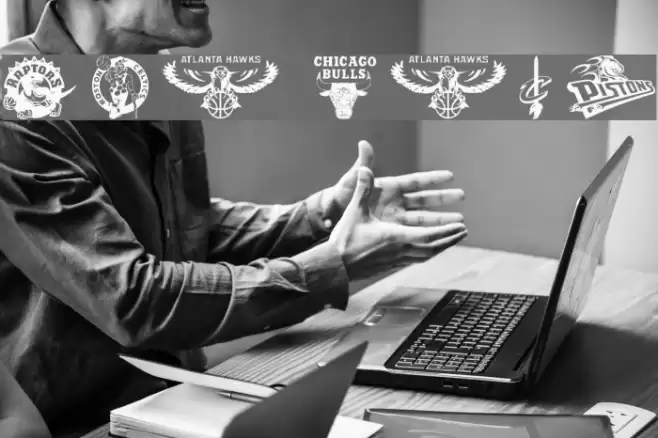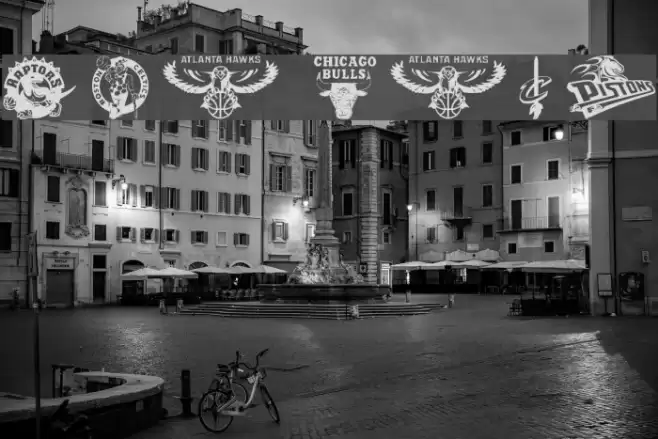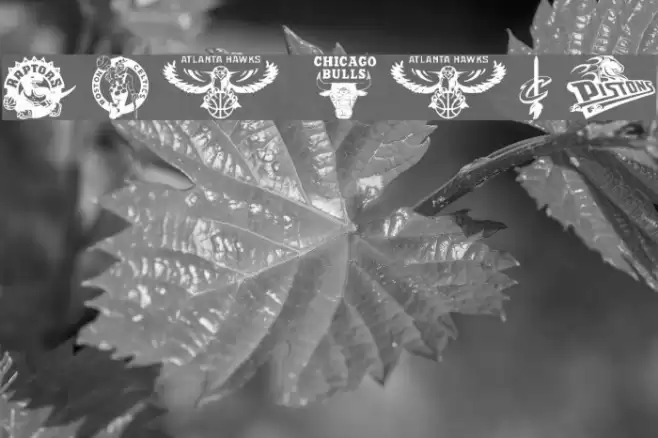
NBA EAST Font
NBA EAST Description
A collection of stylized, bold, and highly recognizable sports team logos, each featuring unique graphic elements and custom lettering, primarily in black and white. The designs incorporate both serif and sans-serif elements, with some logos using script or decorative styles to emphasize team identity.
Distinctive, bold sports team logo designs with custom lettering and graphic elements from Dingbats fonts.
- Proposed Projects: Sports branding, merchandise, event posters, fan apparel, promotional materials.
- Overall Style: Decorative, Modern, Athletic
- Use Case: Logos, Branding, Merchandise